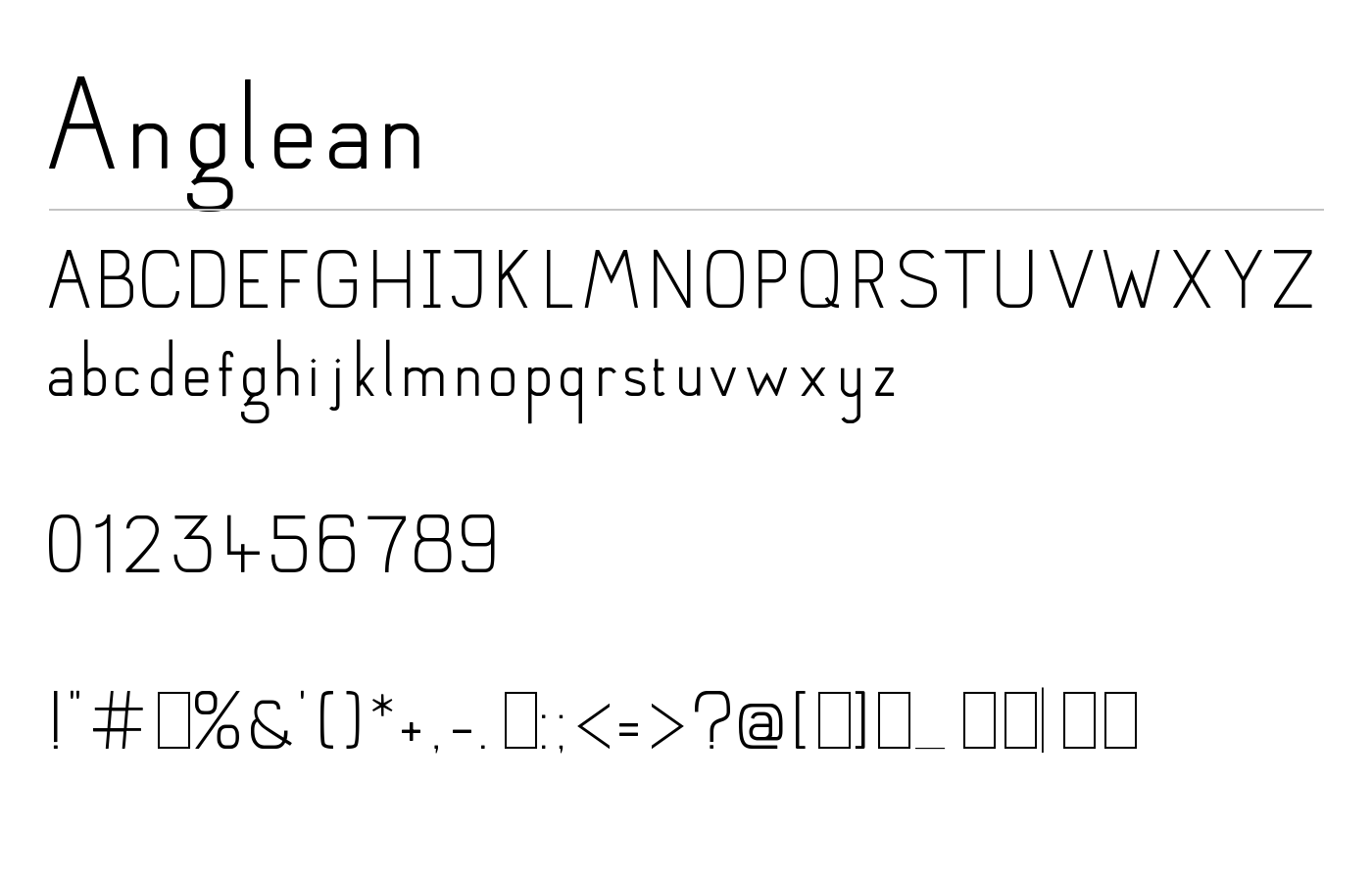
Anglean is a sleek, modern sans-serif font characterized by its thin, even strokes and tall, narrow letterforms that create a clean, technical appearance. With its minimal contrast, generous spacing, and distinctive single-story shapes, it works well for contemporary branding, tech-focused designs, and editorial projects that need a refined yet approachable style. This font’s streamlined personality makes it ideal for headlines, user interfaces, and any design aiming for a futuristic, professional look.
Anglean Font